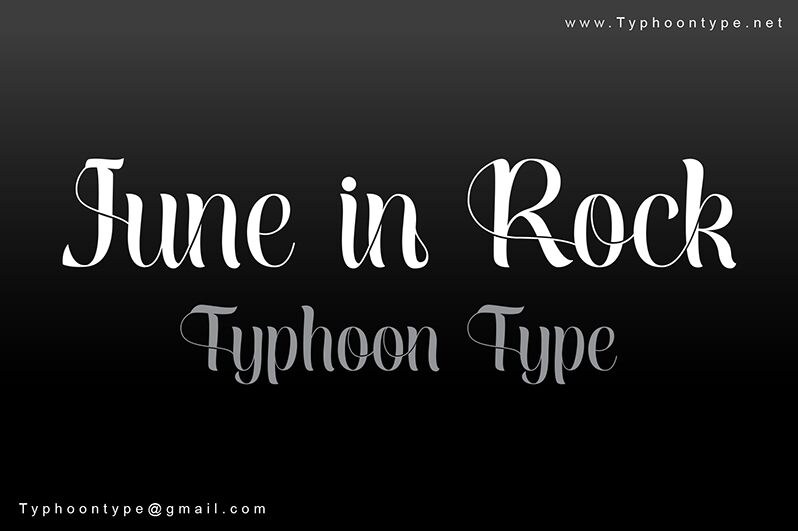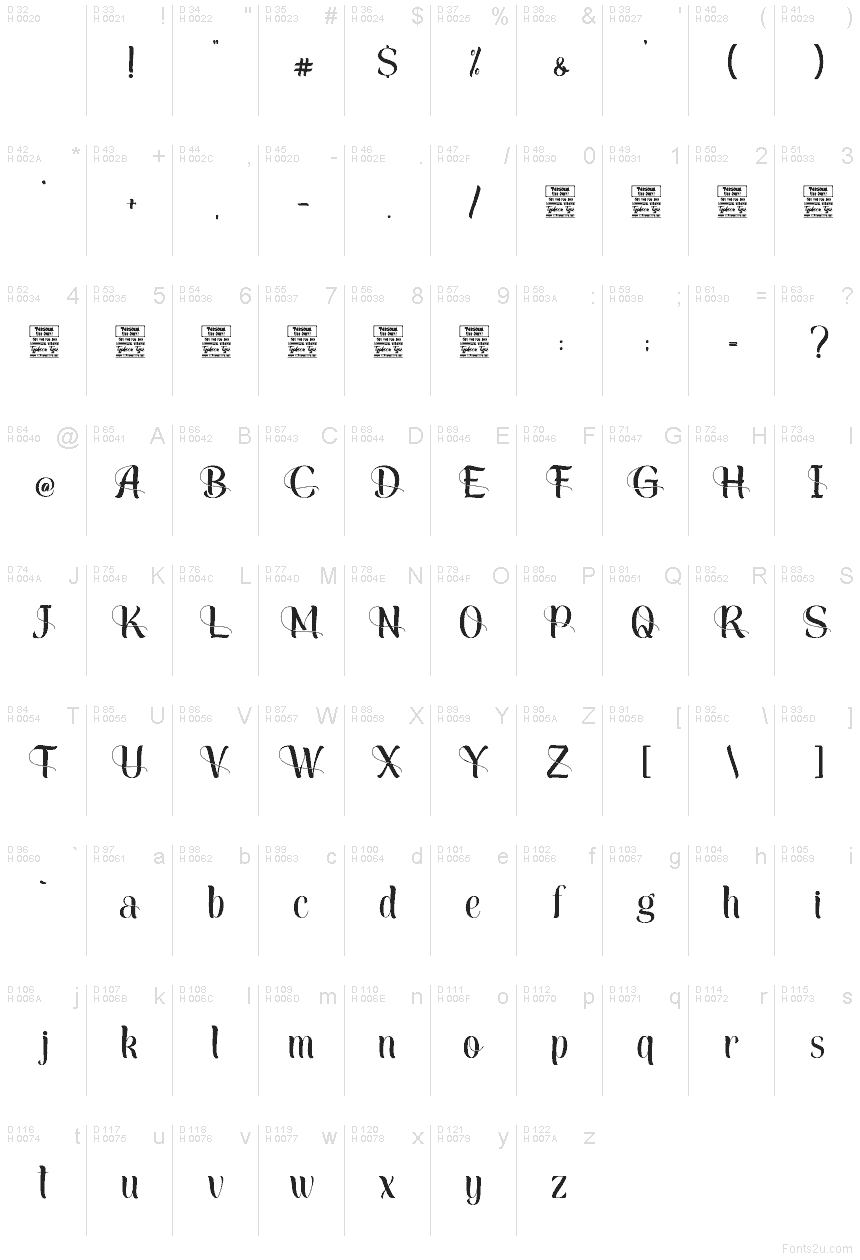
June in Rock - Personal Use
June in Rock font by Typhoon Type - Suthi Srisopha is a free brush script font. Its tall, slender strokes glide together with ribbon‑like swashes, leaving a soft, inky sheen that feels hand‑painted yet tidy. The rhythm is lively without losing clarity, so headlines read with a confident swoop instead of a messy scribble.
Using June in Rock, you can bring flair to wedding invitations, boutique logos, packaging labels, café menus, event posters, and bold social posts. The compact width helps fit longer names, while the smooth joins keep words flowing in one elegant breath. For balance, pair this free font with a simple geometric sans and give it a little extra line spacing to let those swashes breathe.